Font Typesetting Function 13: “Discretionary Ligatures (dlig)”
I brought up “Standard Ligatures” (liga) in the previous article. In this article, I would like to introduce “Discretionary Ligatures” (dlig). The name “Discretionary Ligatures” may be difficult to understand. It may mean something like “ligature with discretion.” Oh, this may be even more difficult to understand….
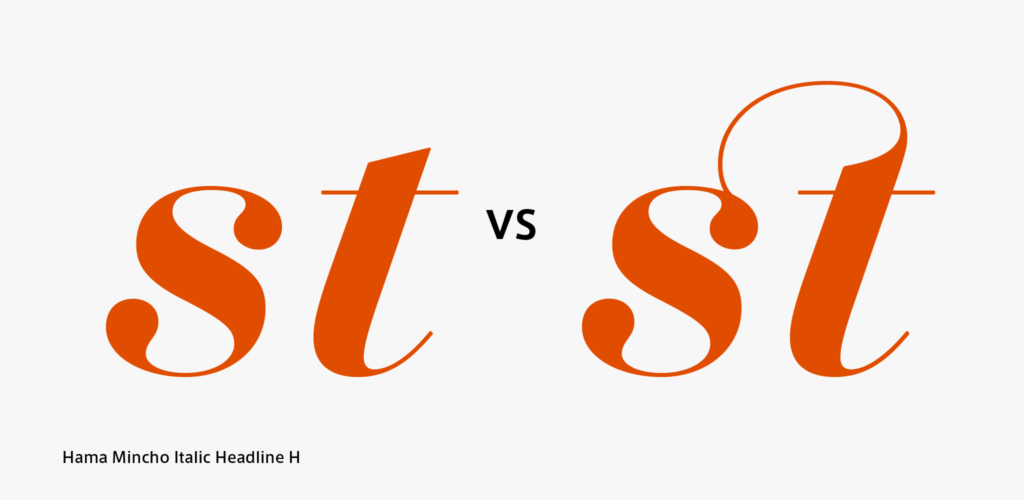
While default usage is assumed in “Standard Ligatures,” optional usage is assumed in “Discretionary Ligatures.” Ornamental st ligature from Hama Mincho Italic is indicated in the figure. Apart from this, many ligatures can be called up in “Discretionary Ligatures” in this font. For those of you using TP Connect, please try them out.